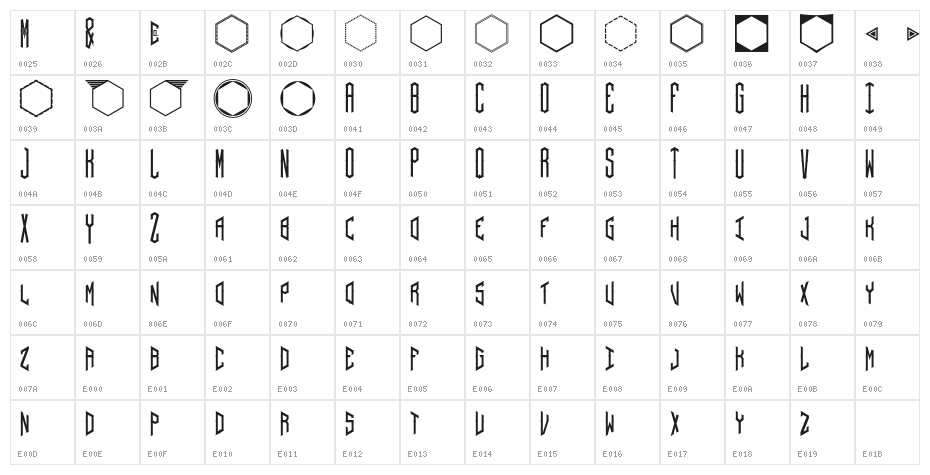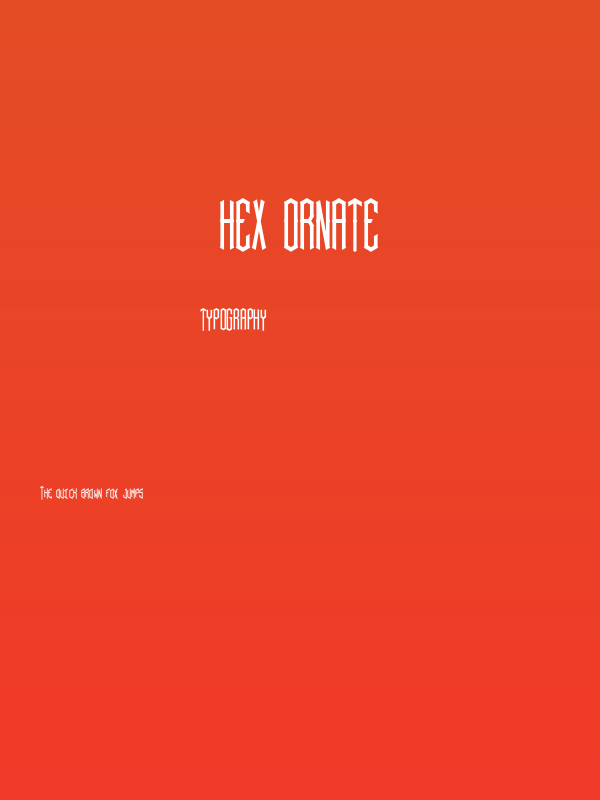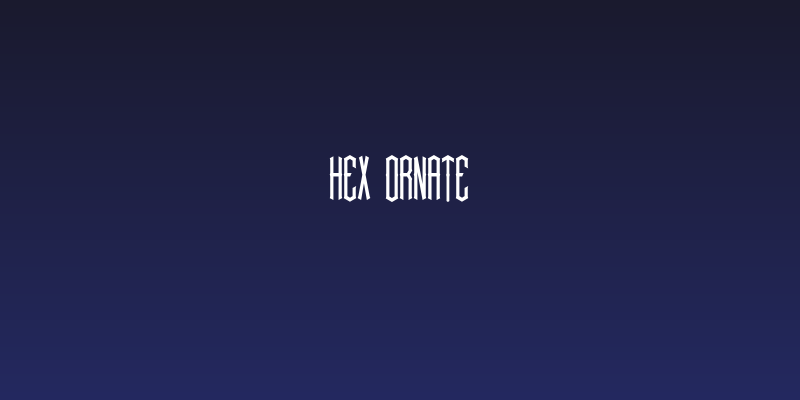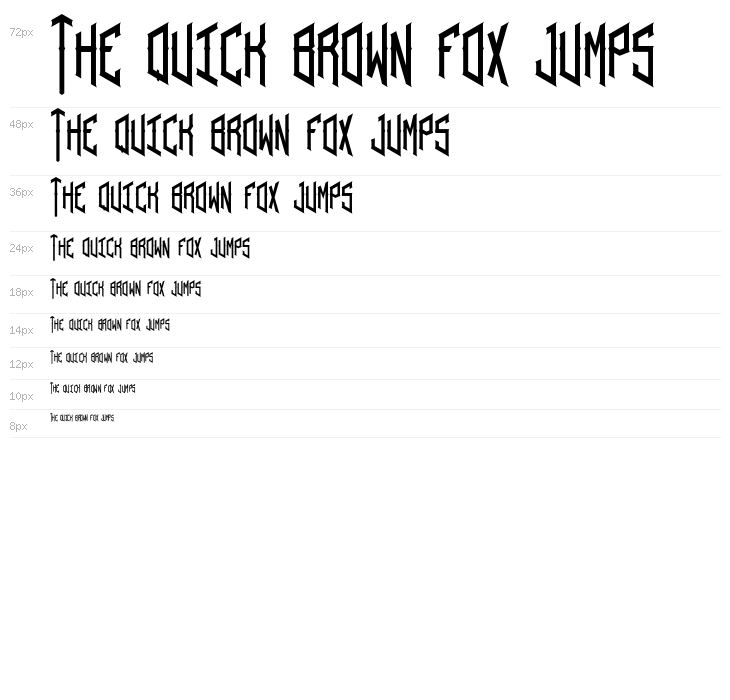
Hex ornate Font
Hex ornate Description
This font features a highly decorative and ornate style with a geometric and angular design. The characters are elongated and exhibit a unique, edgy appearance, reminiscent of gothic or medieval influences. The uppercase letters are tall and narrow, with sharp serifs and intricate detailing that adds to their ornate nature. The lowercase letters maintain the same stylistic elements, ensuring consistency throughout the typeface. The numbers and special characters are equally elaborate, integrating seamlessly with the overall design. This font's distinctiveness makes it stand out, offering a bold and artistic aesthetic.
| Proposed Projects | Ideal for use in fantasy-themed projects, book covers, posters, or any design requiring a dramatic and artistic flair. |